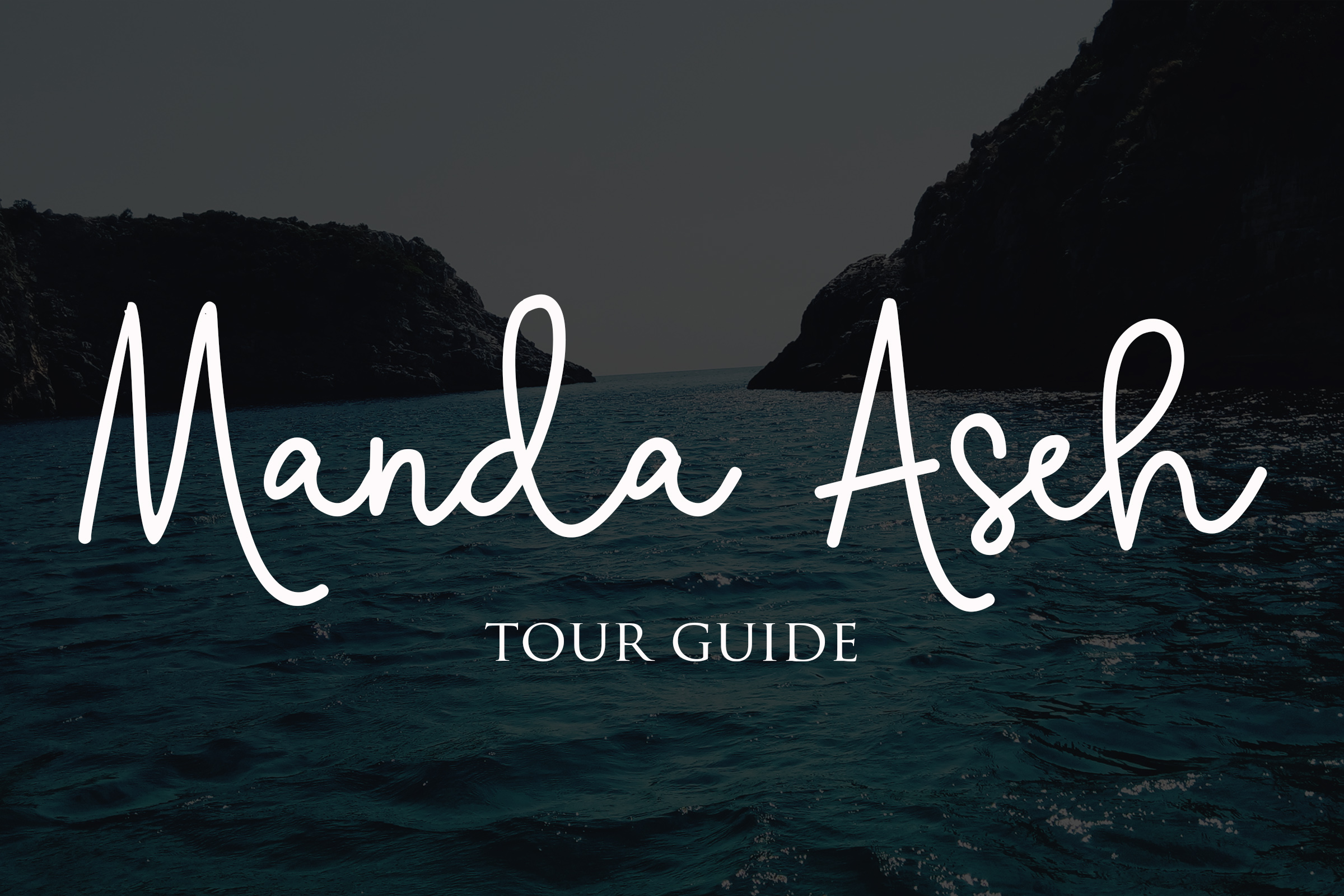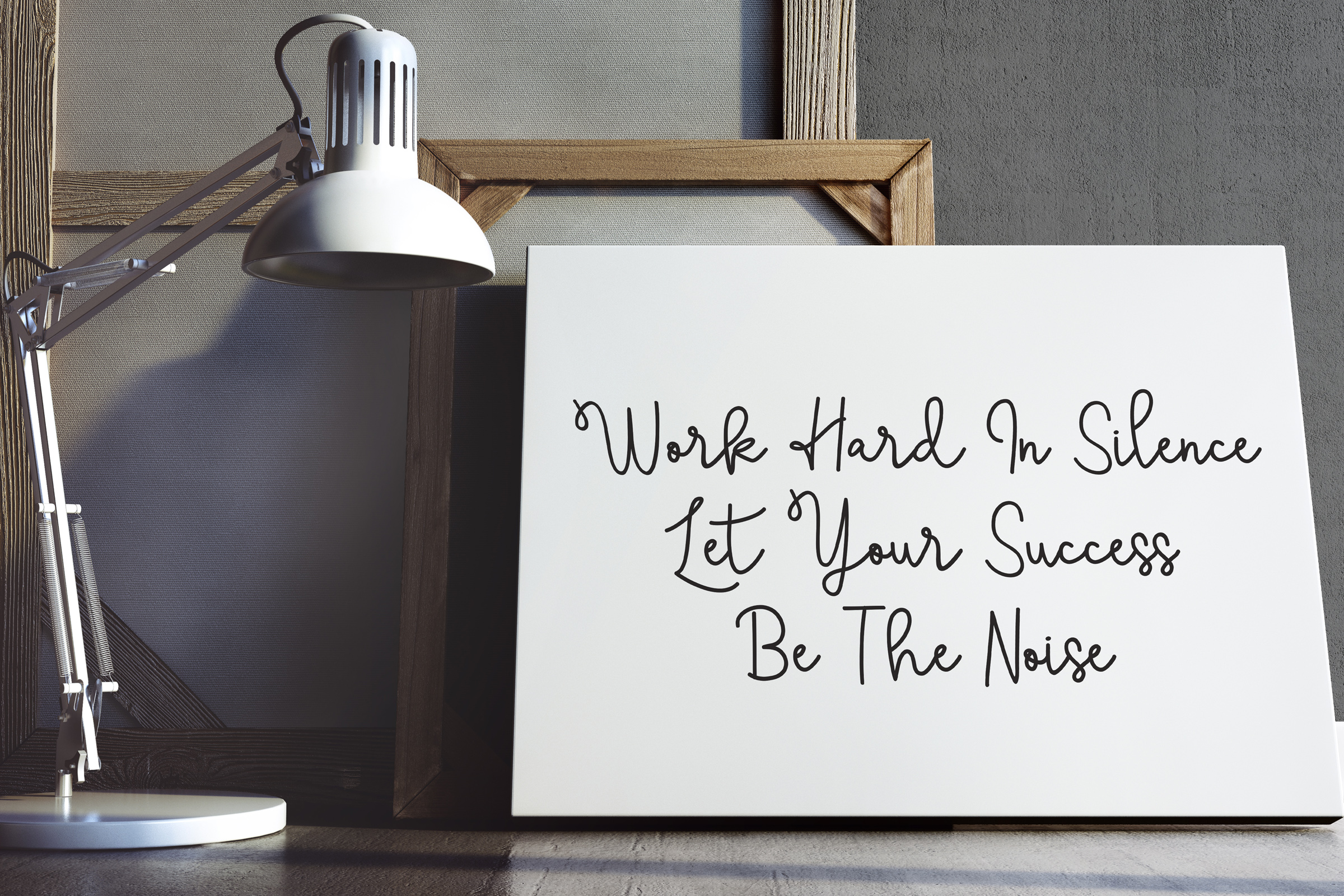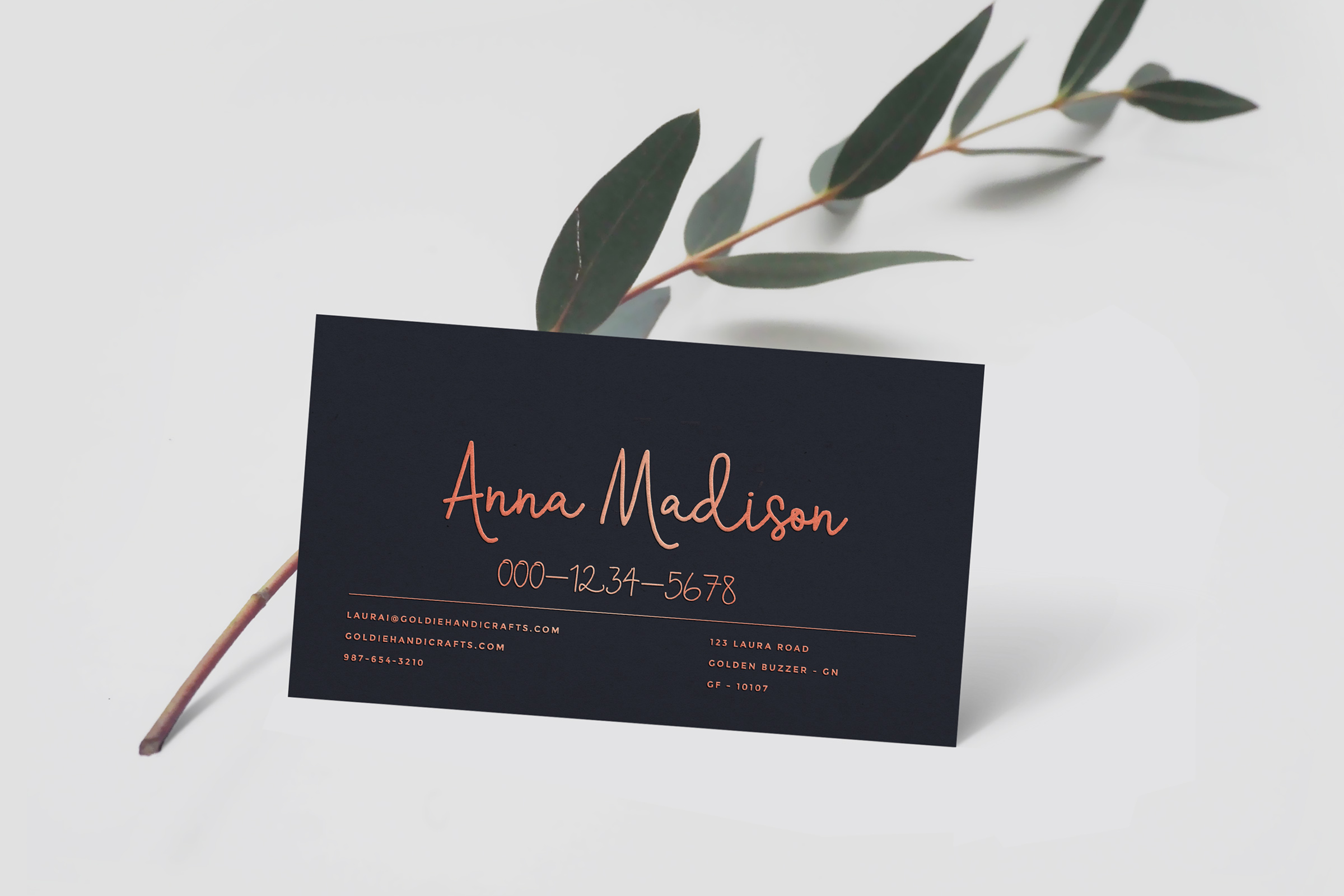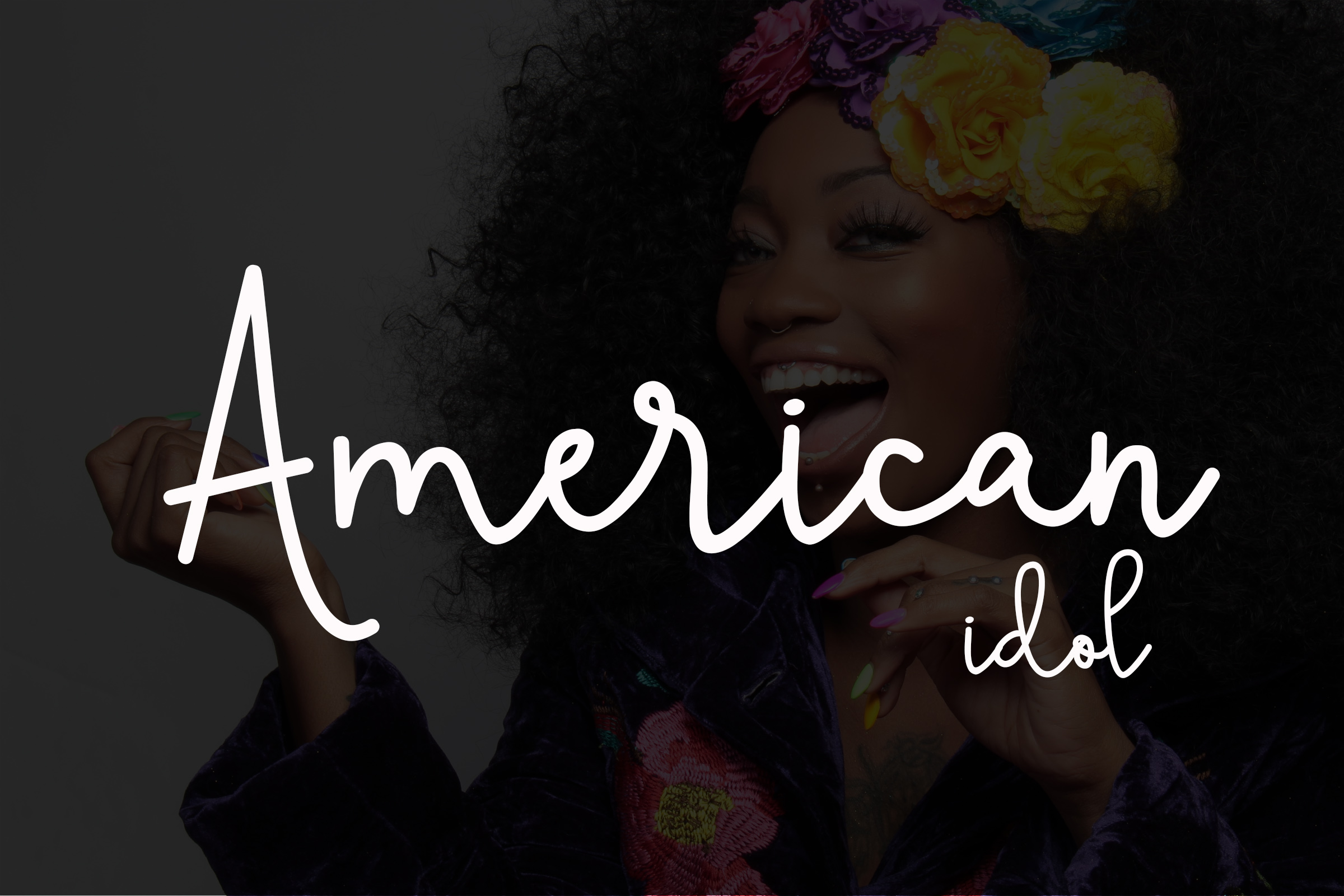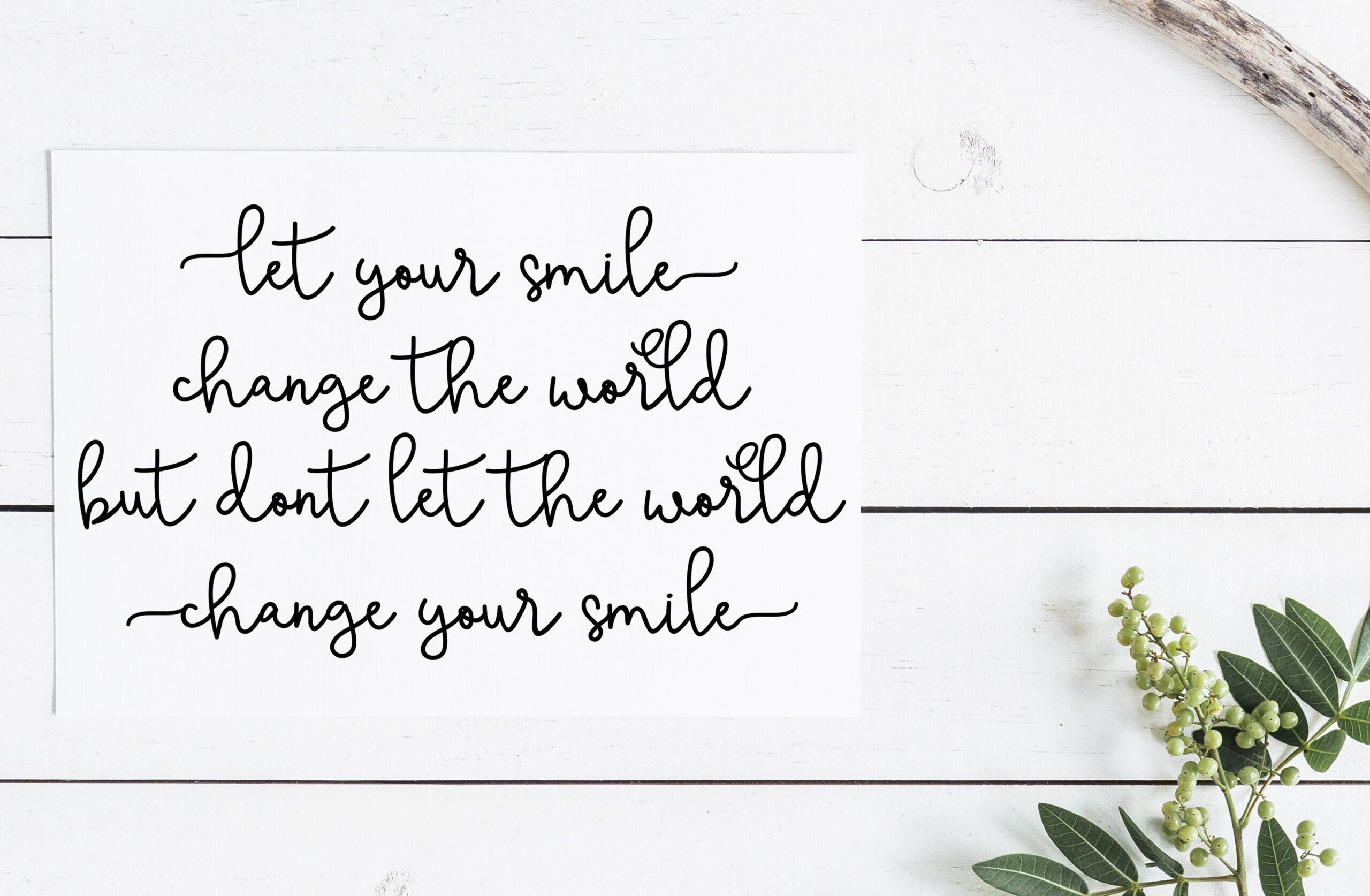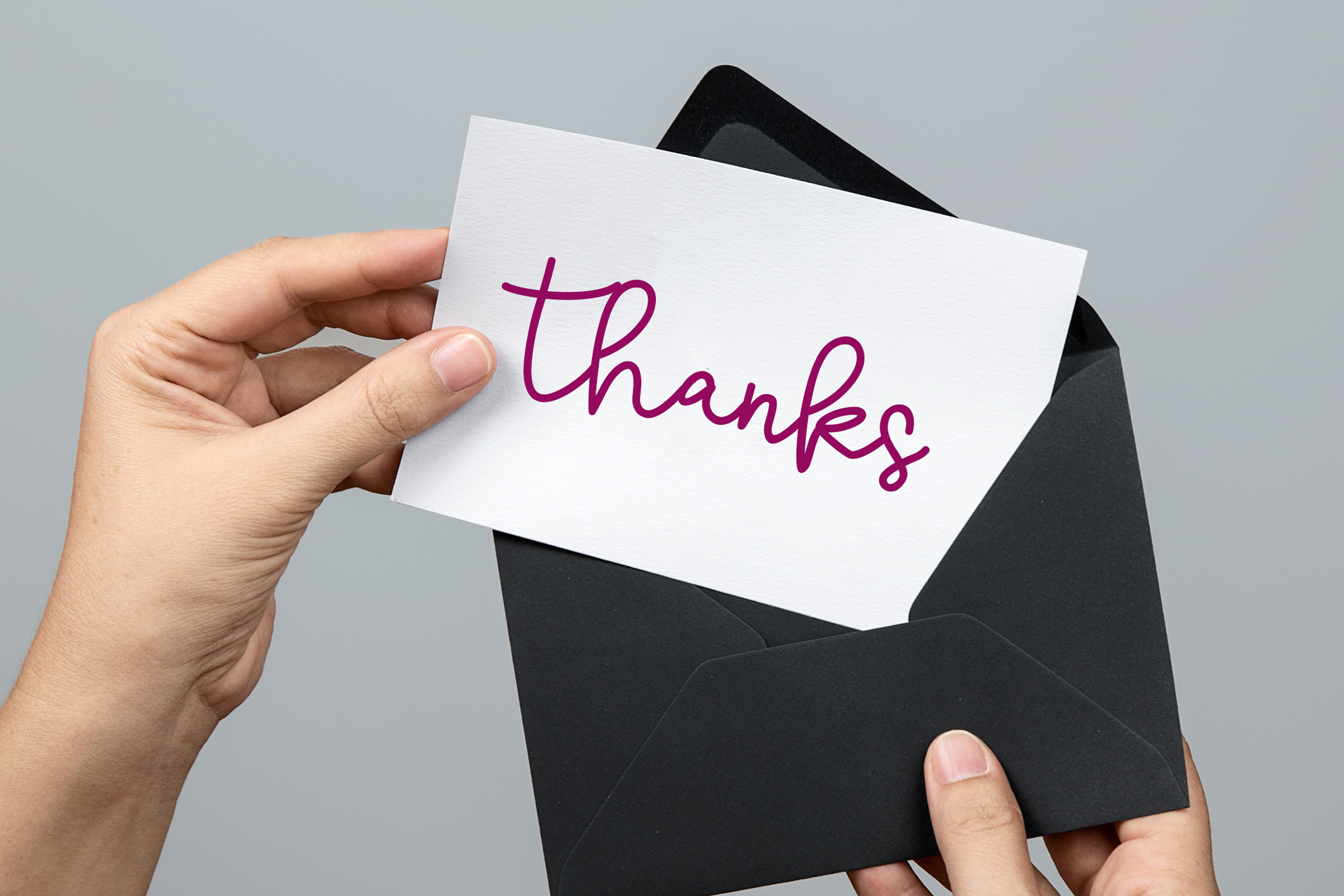
Skolateka Font
Skolateka Script a new fresh & modern script with a handwritten style. It features decorative characters and has a dancing baseline!
The Skolateka Script comes packed with 268 unique glyphs and features a solid range of alternates.